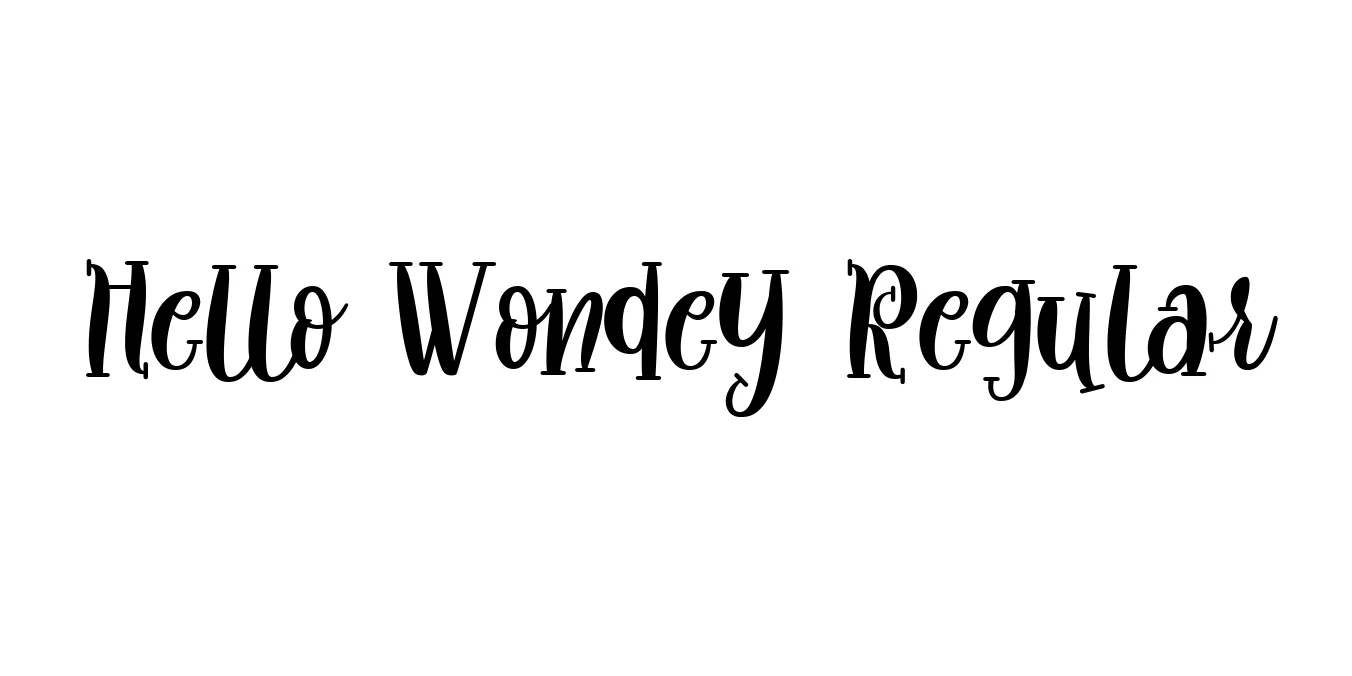
Hello Wondey Regular
Designed by Sronstudio
Hello Wondey Regular is a sophisticated and elegant script font that captures the essence of modern calligraphy. Characterized by its flowing lines and artistic flourishes, this typeface is designed to bring a sense of grace and personality to both digital and print projects. Its balanced spacing and clear letterforms ensure that it remains highly legible even in complex design layouts, making it a versatile choice for designers seeking a high-end, bespoke aesthetic.
The typeface has gained significant popularity in the creative community due to its extensive range of ligatures and swashes, which allow for a truly custom feel in every application. It is frequently employed in luxury branding, fashion editorials, and romantic event stationery. Whether used for a signature-style logo or a decorative headline, Hello Wondey Regular provides a professional yet intimate aesthetic that resonates with contemporary audiences seeking authenticity.
Hello Wondey Regular Best Uses
Perfect for creating romantic and high-end invitations, RSVP cards, and save-the-dates.
Ideal for creating elegant, signature-style logos for fashion, beauty, and lifestyle brands.
Excellent for eye-catching Instagram quotes, Pinterest graphics, and blog headers.
Adds a premium and personalized touch to cosmetics, perfumes, and boutique labels.